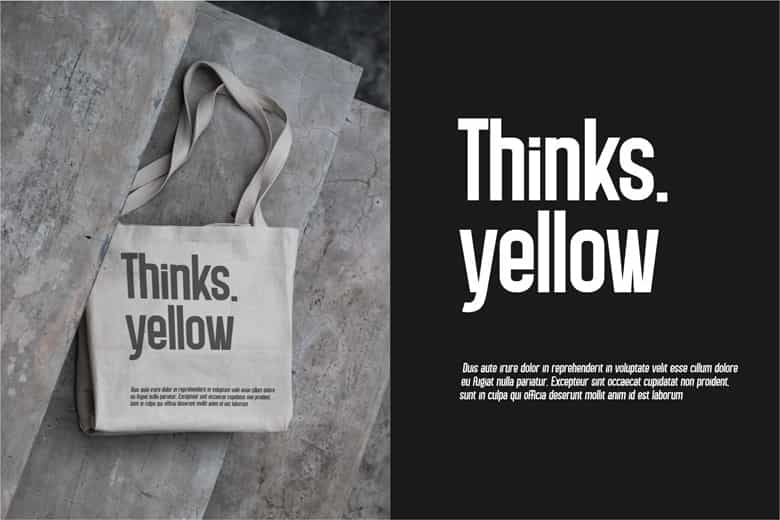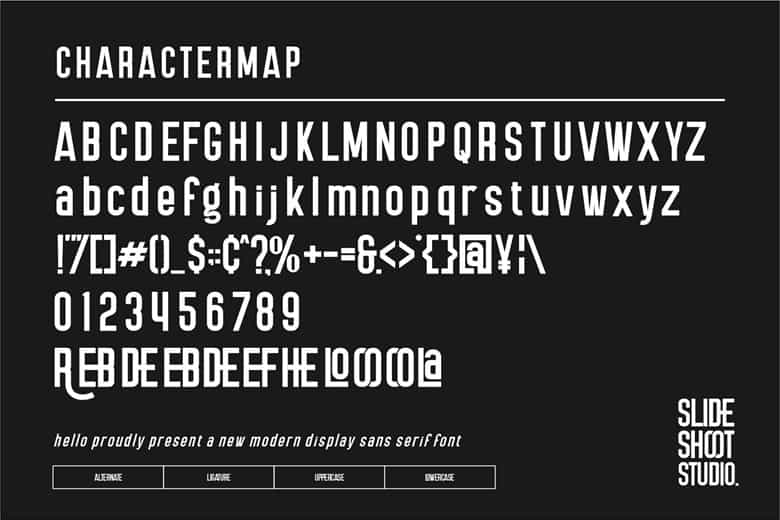
Relonity is a new modern display sans serif typeface that was inspired by classy and contemporary designs. It will be perfectly suitable for magazines, packaging, poster, shopping bags, T-shirts, book covers, photography, special events and other design works.